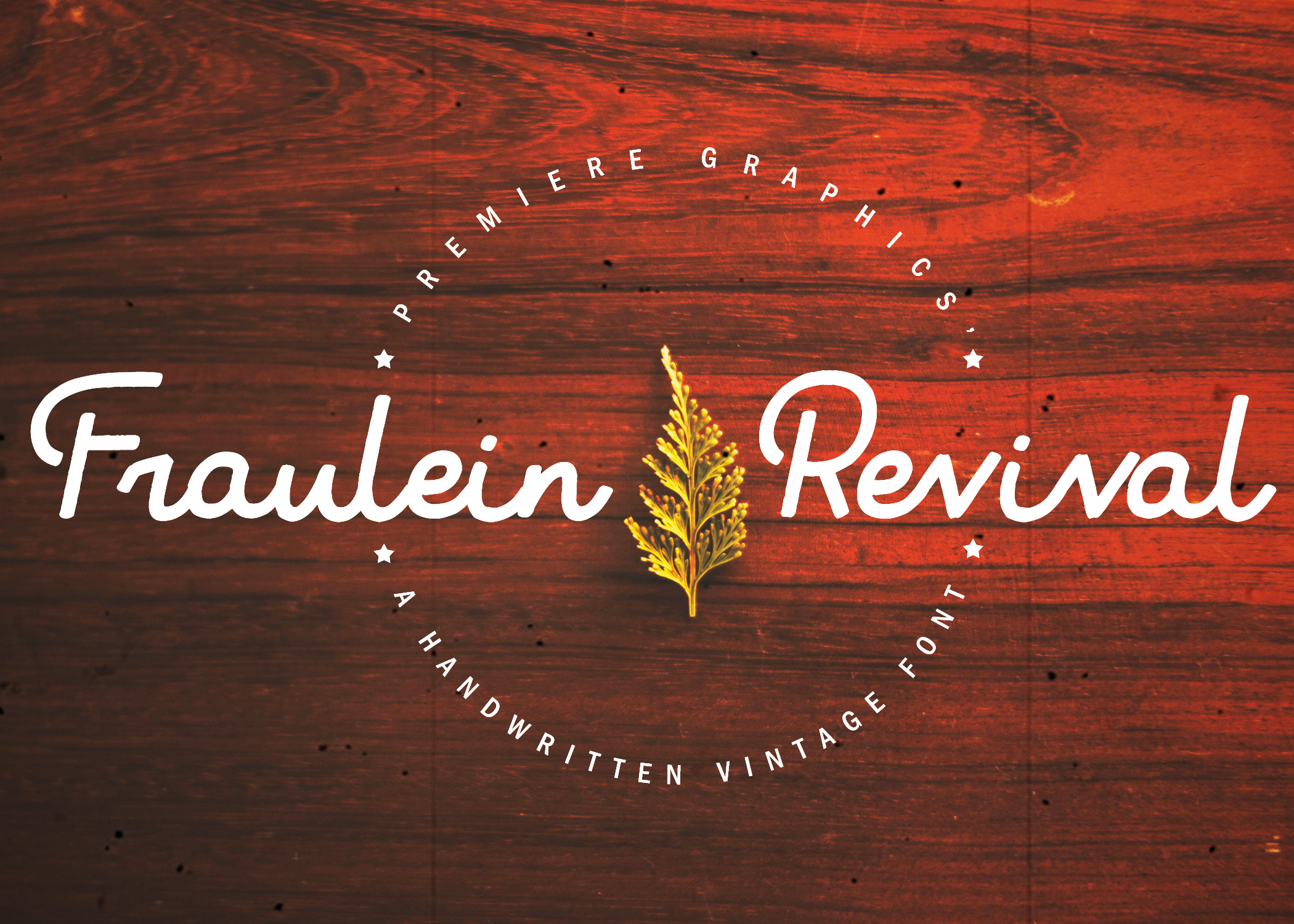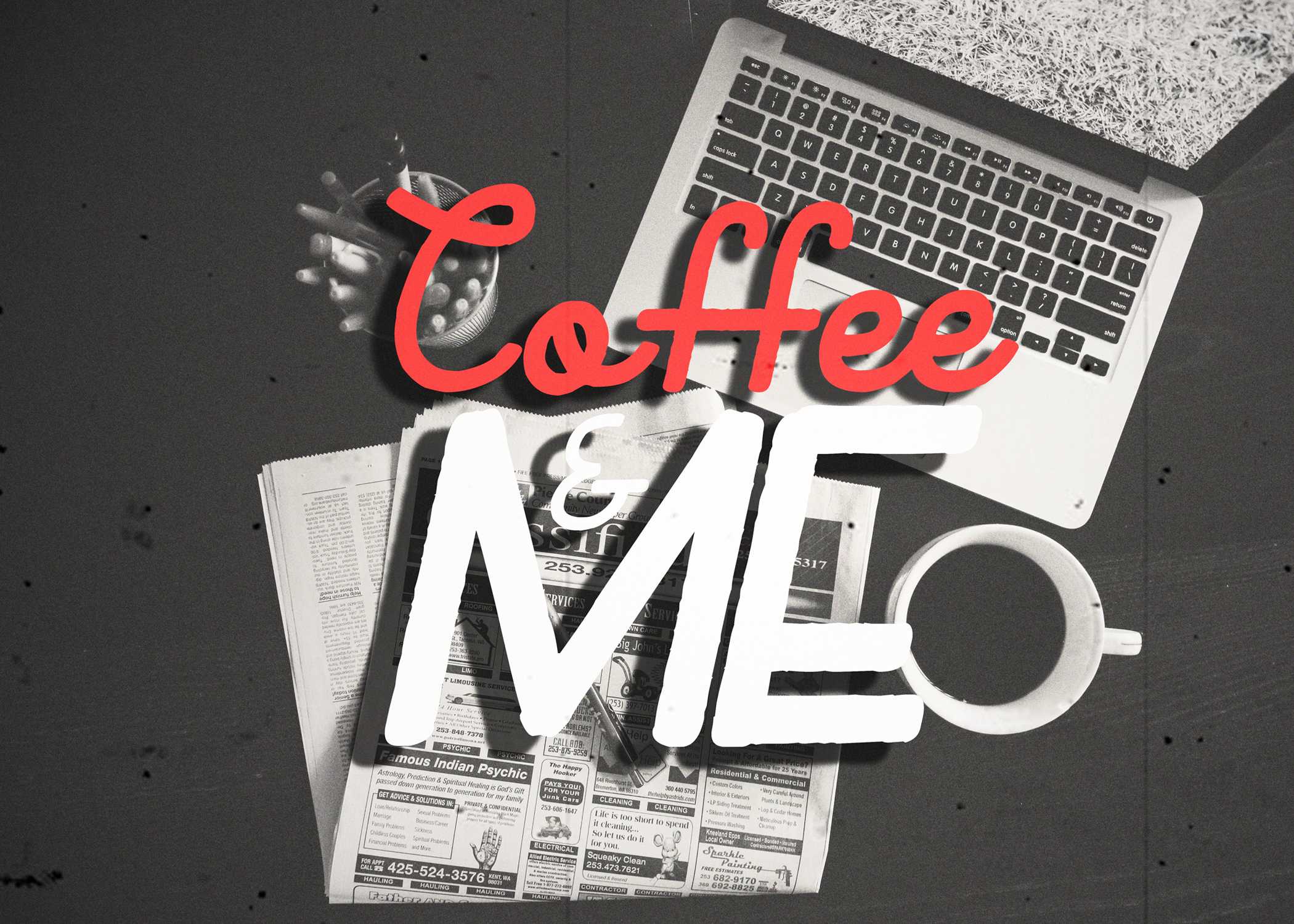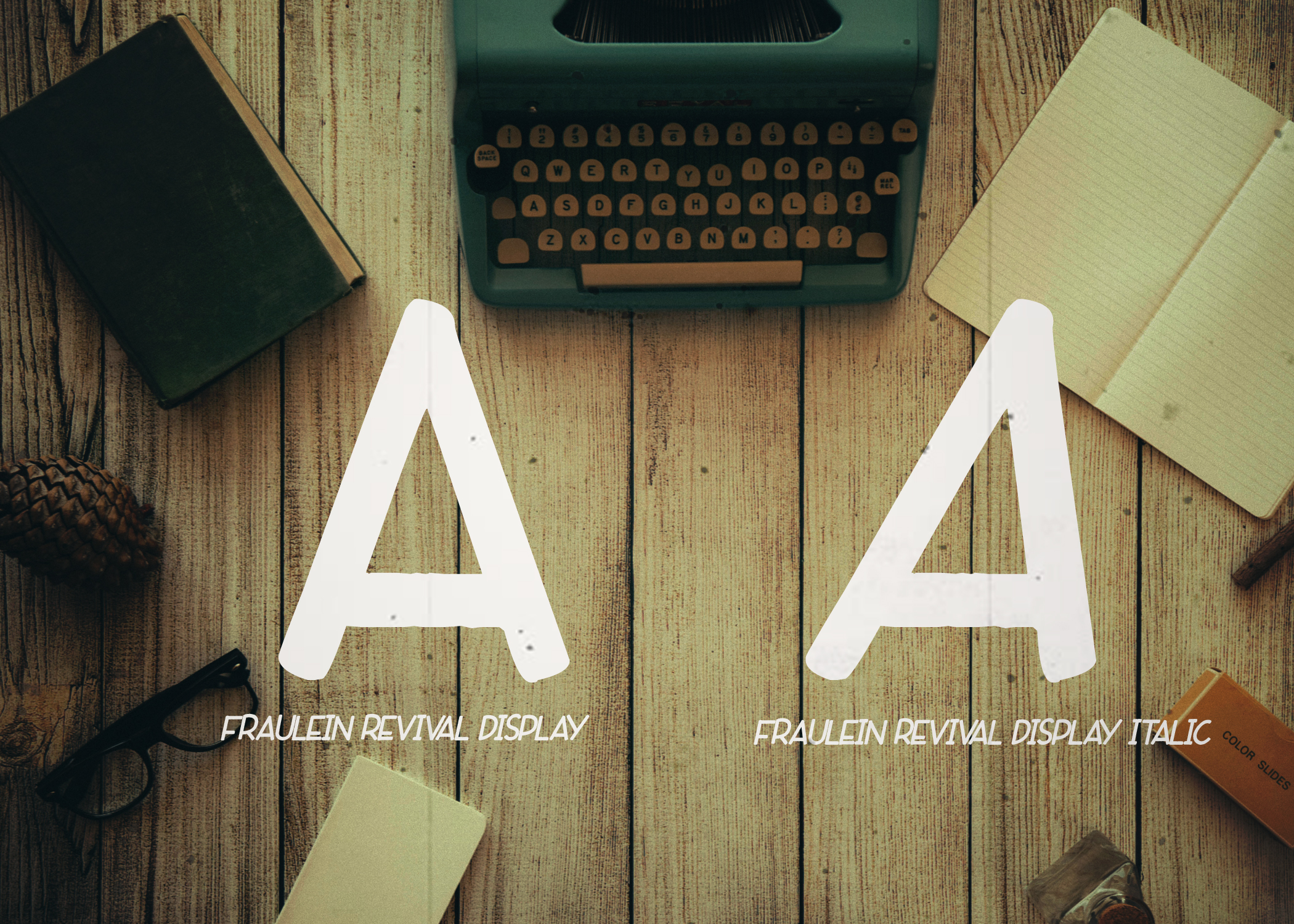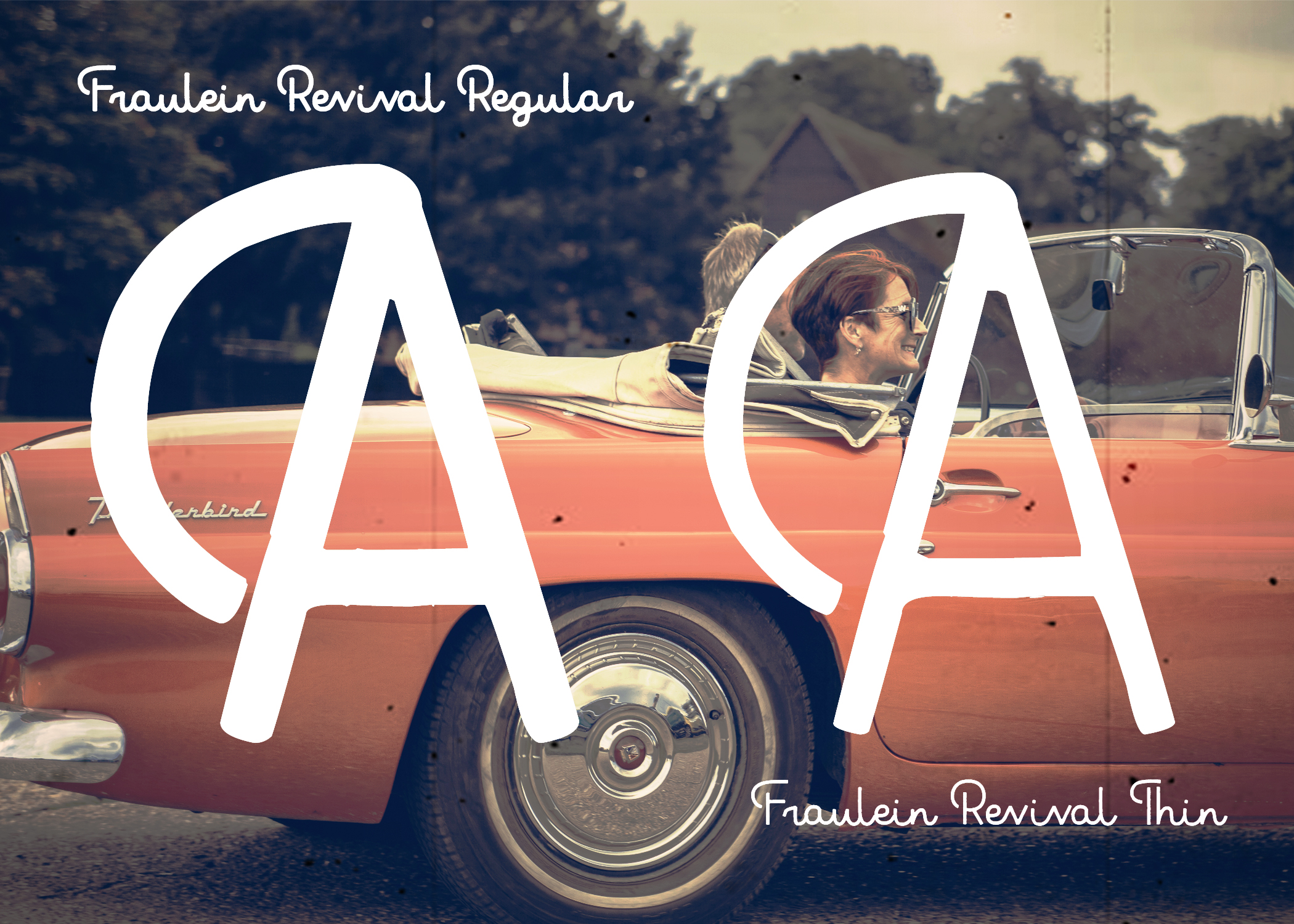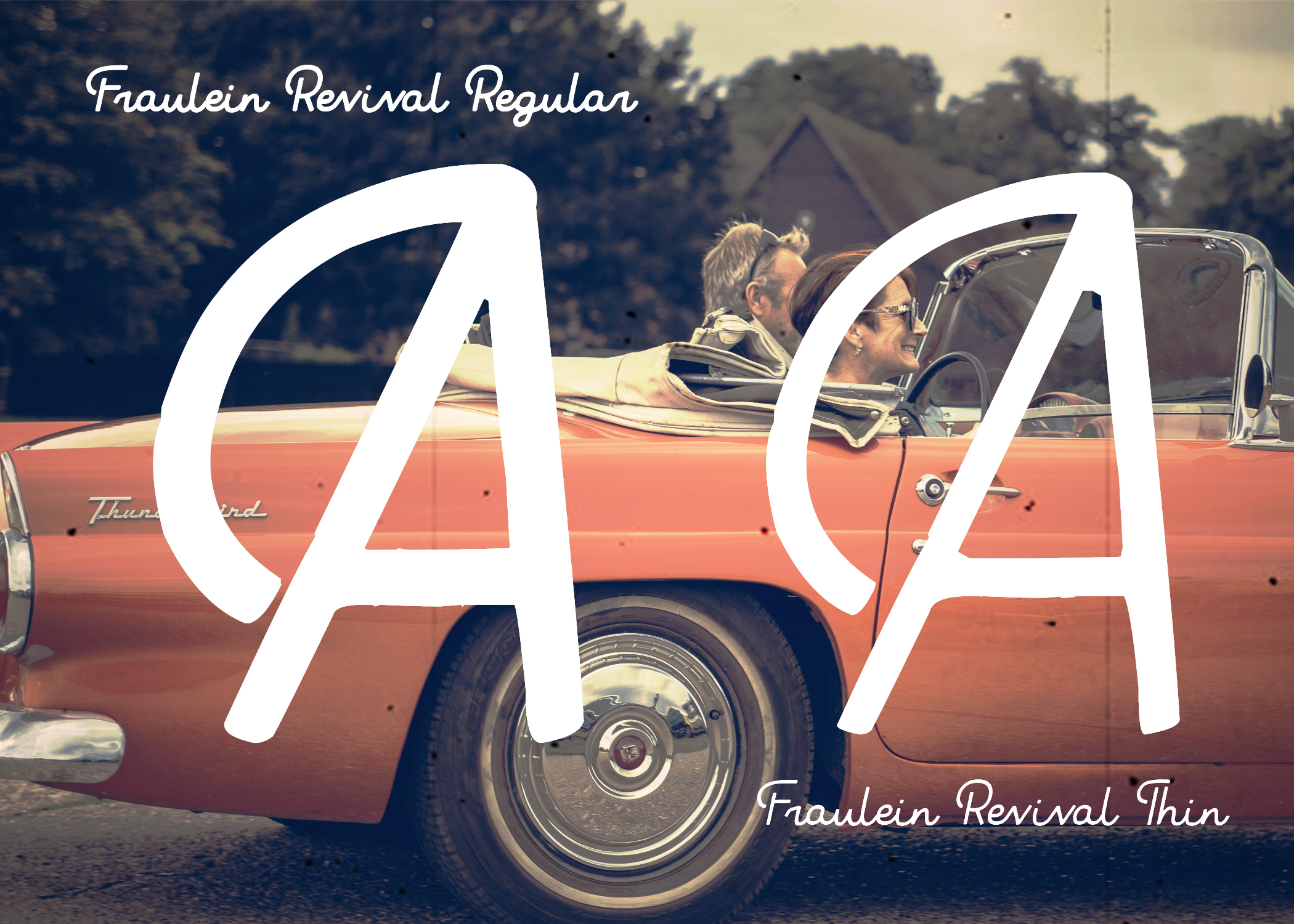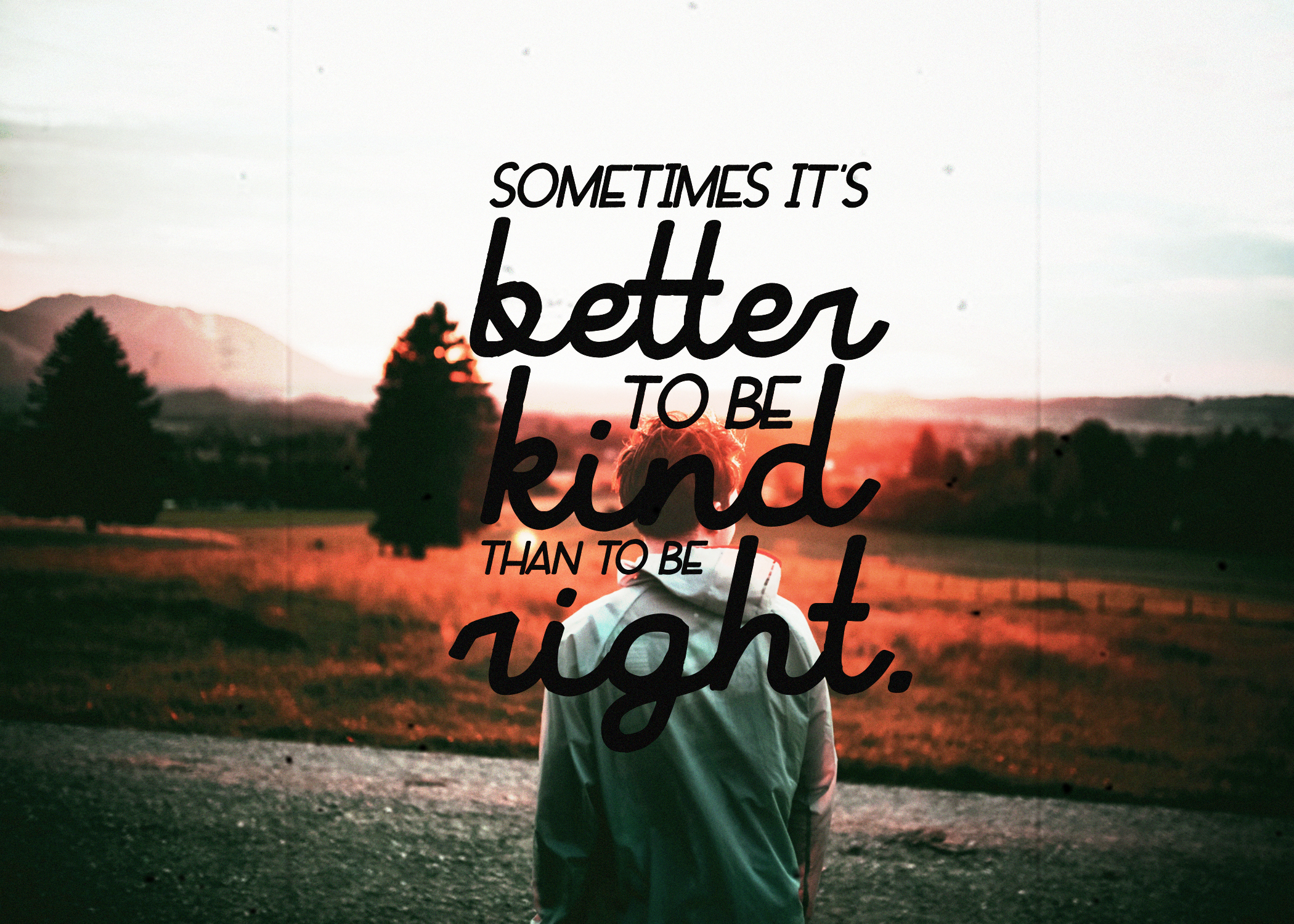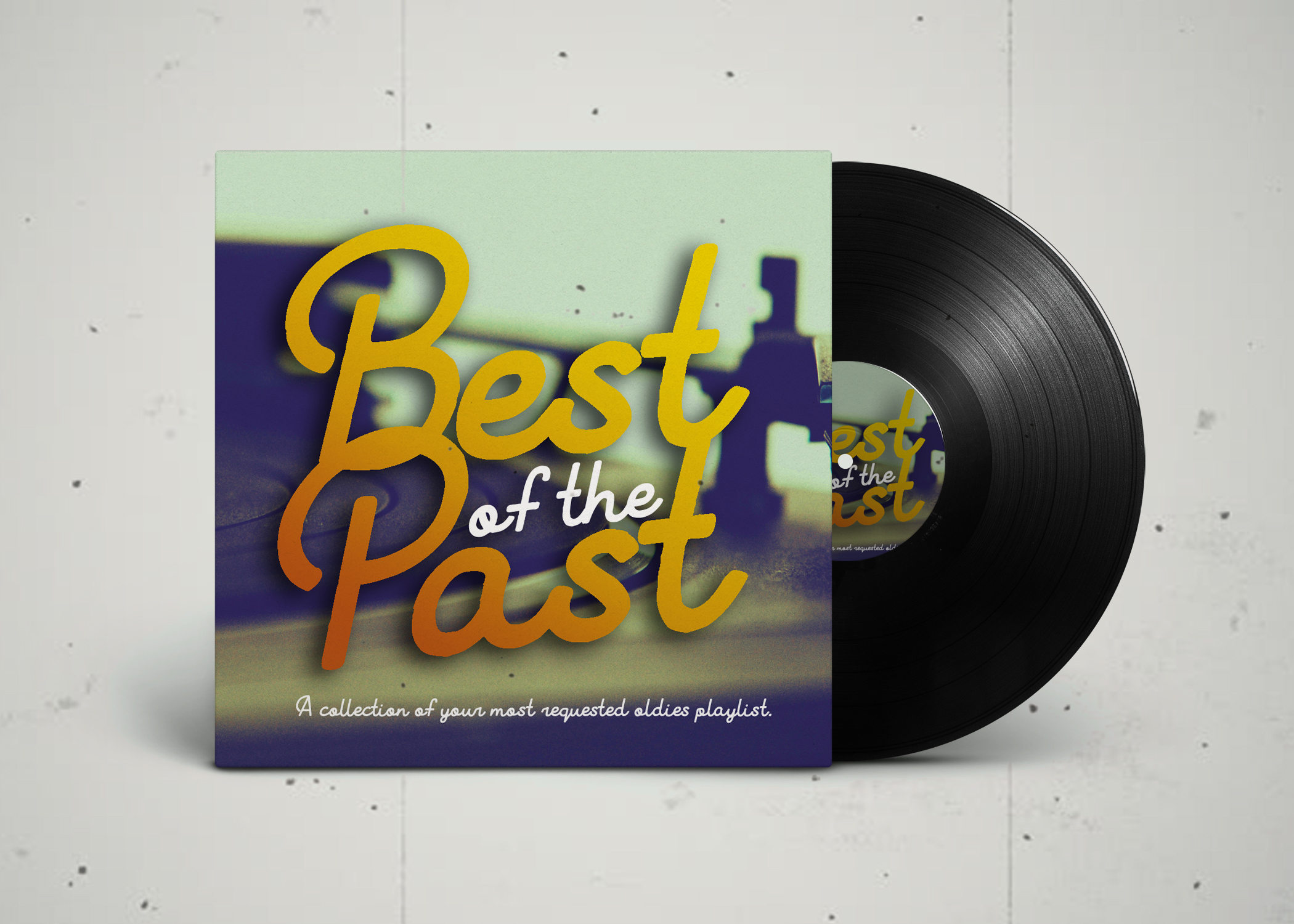
Fraulein Revival Font
About Fraulein Revival Font
Fraulein Revival is a modern-vintage typeface perfect for many different types of projects. Looking for a bold font for your logo design? Maybe something vintage for your coffee shop? What about something readable and playful for your products? It’s texture and smoothness is modern-vintage inspired which gives it a more nostalgic feel.